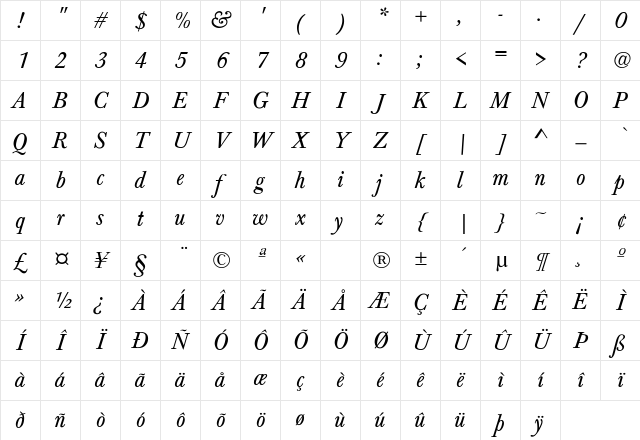
Baskerville-Normal-Italic Regular
Design Context for Baskerville-Normal-Italic
Baskerville-Normal-Italic is a composed and adaptable typeface that performs quietly and consistently across a wide range of design contexts. The slanted form adds forward momentum and visual energy.
Pro Tip: Use Baskerville-Normal-Italic for emphasis, pull quotes, and subheadings where its slanted energy can add rhythm to the layout.